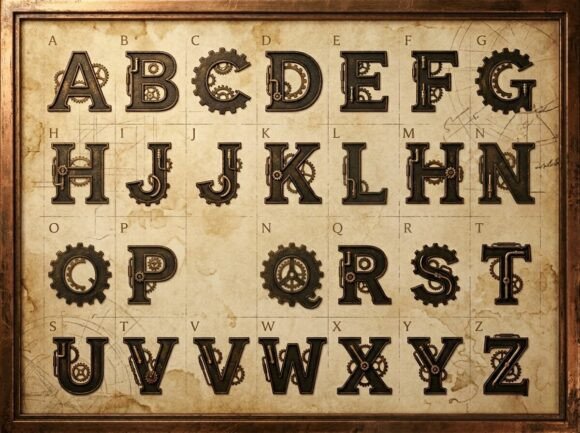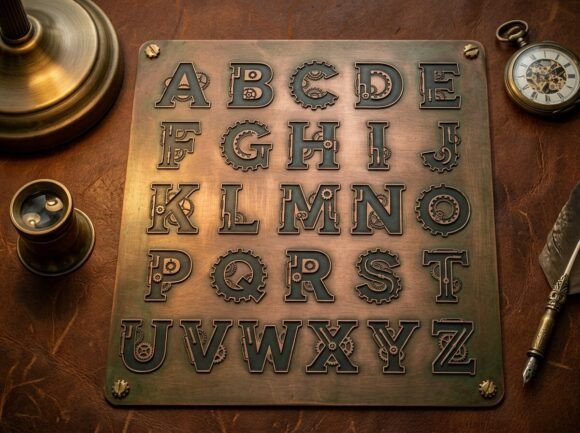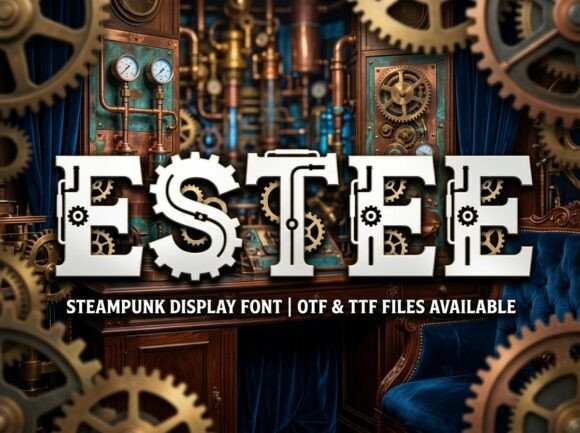
Introducing Estee Font: The Ultimate Decorative Display Font
Are you tired of using the same old fonts for your designs? Look no further than Estee Font, a stunning decorative display font that’s sure to turn heads. With its unique artistic elements and strong visual personality, Estee Font is perfect for creators who want to break away from the ordinary and make a statement.
What is Estee Font?
Estee Font is a decorative display font designed to be the center of attention. Its unique and artistic elements make it perfect for bold headlines, artistic logos, and creative packaging. The font is versatile enough to be used in a variety of design projects, while maintaining a professional and polished finish.
Key Features of Estee Font
- Unique Artistic Elements: Estee Font features unique artistic elements that set it apart from other fonts. Each letter is carefully crafted to make a statement and add a touch of elegance to your designs.
- Strong Visual Personality: The font has a strong visual personality that demands attention. It’s perfect for designers who want to create bold and eye-catching headlines, logos, and packaging.
- Versatile: Estee Font is versatile enough to be used in a variety of design projects, from bold headlines to artistic logos and creative packaging.
- Professional and Polished Finish: Despite its bold and artistic nature, Estee Font maintains a professional and polished finish that’s perfect for designers who want to create high-quality designs.
Why Choose Estee Font?
There are many reasons why designers and crafters should choose Estee Font for their projects. Here are a few:
- Stand Out from the Crowd: Estee Font is a unique and eye-catching font that’s sure to make your designs stand out from the crowd.
- Perfect for Decorative Designs: The font is specifically designed for decorative designs, making it perfect for designers who want to create bold and artistic headlines, logos, and packaging.
- Professional Quality: Despite its bold and artistic nature, Estee Font maintains a professional quality that’s perfect for designers who want to create high-quality designs.
How to Use Estee Font
Estee Font is easy to use and can be used in a variety of design projects. Here are a few tips on how to use the font:
- Use it for Headlines: Estee Font is perfect for bold and eye-catching headlines. Use it to create headlines that demand attention.
- Use it for Logos: The font is also perfect for artistic logos. Use it to create logos that are unique and eye-catching.
- Use it for Packaging: Estee Font can also be used for creative packaging. Use it to create packaging that stands out from the crowd.
In conclusion, Estee Font is a stunning decorative display font that’s perfect for designers and crafters who want to create bold and eye-catching designs. With its unique artistic elements and strong visual personality, Estee Font is sure to make a statement. Whether you’re looking to create bold headlines, artistic logos, or creative packaging, Estee Font is the perfect choice.